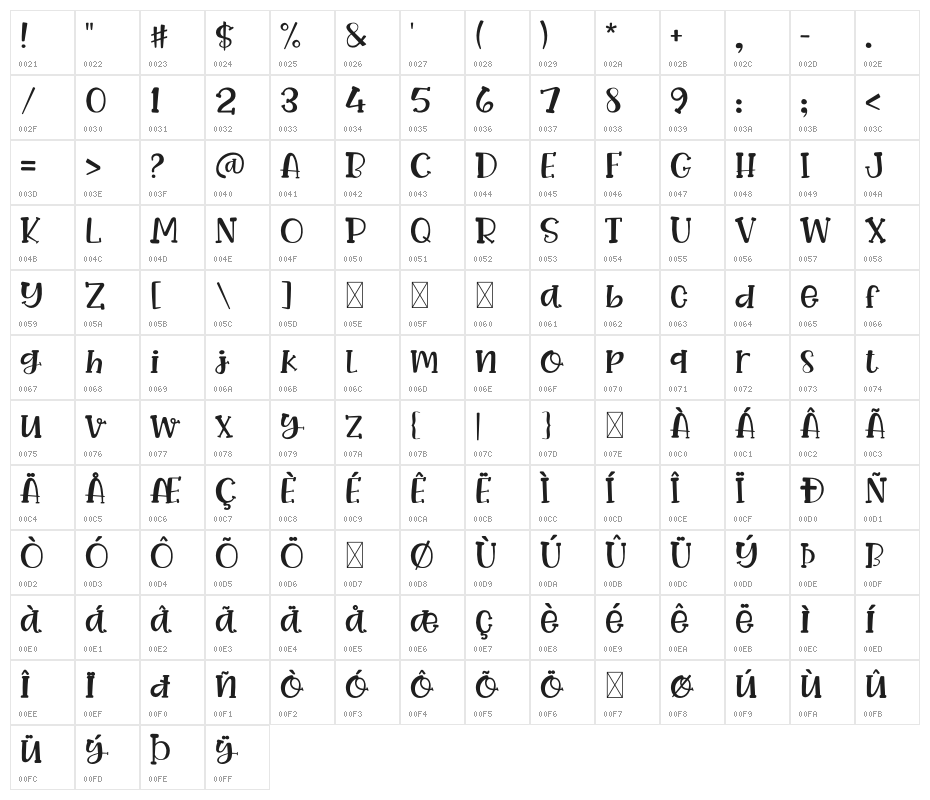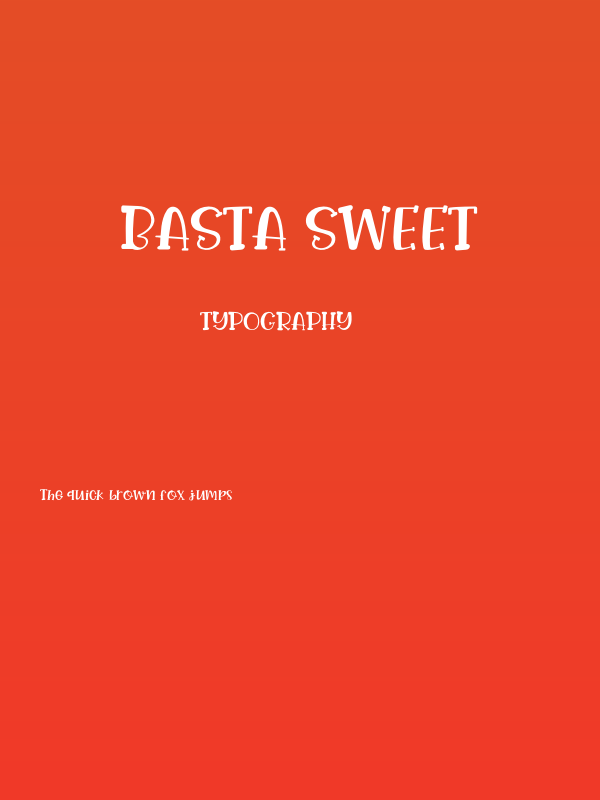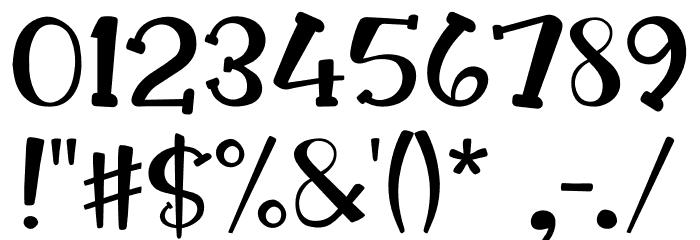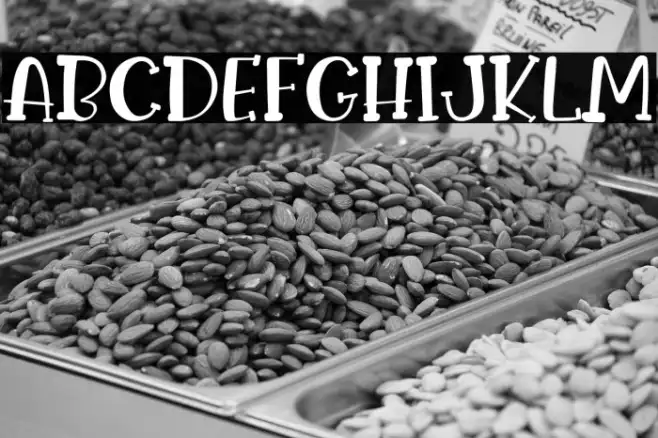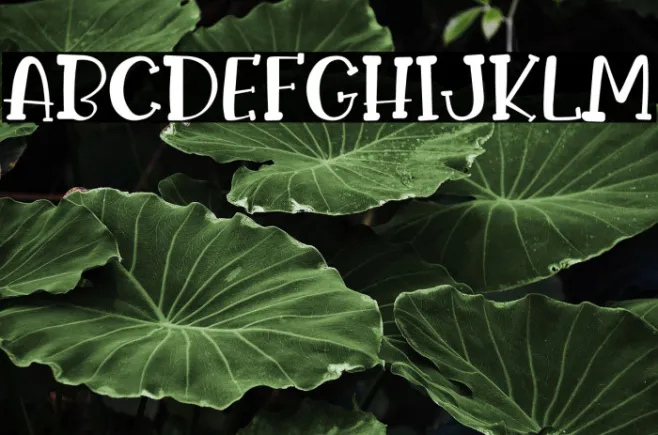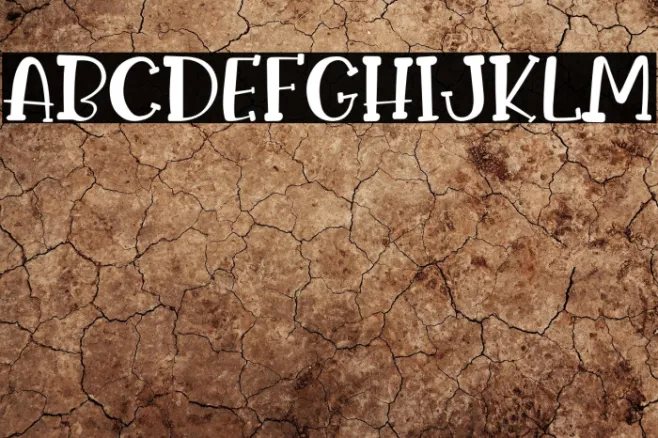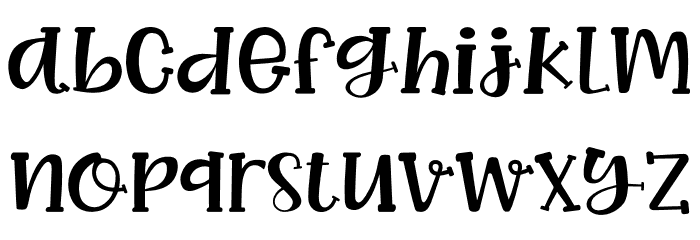
BASTA Sweet Font
BASTA Sweet Description
This playful and whimsical font features a unique blend of bold and rounded characters with a slight slant, giving it a lively and energetic feel. The uppercase letters are characterized by their thick strokes and subtle curves, while the lowercase letters maintain a consistent style with a touch of flair in their tails and loops. The numbers are bold and easily readable, complementing the overall design. Special characters are creatively styled, adding to the font's charm. This font is perfect for projects that require a fun and engaging aesthetic.